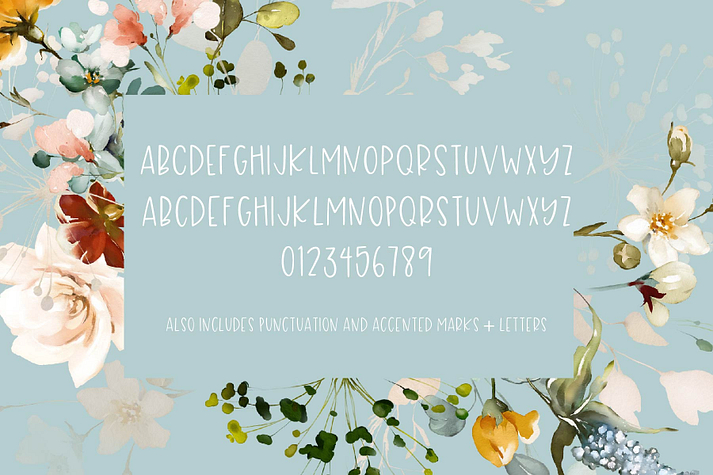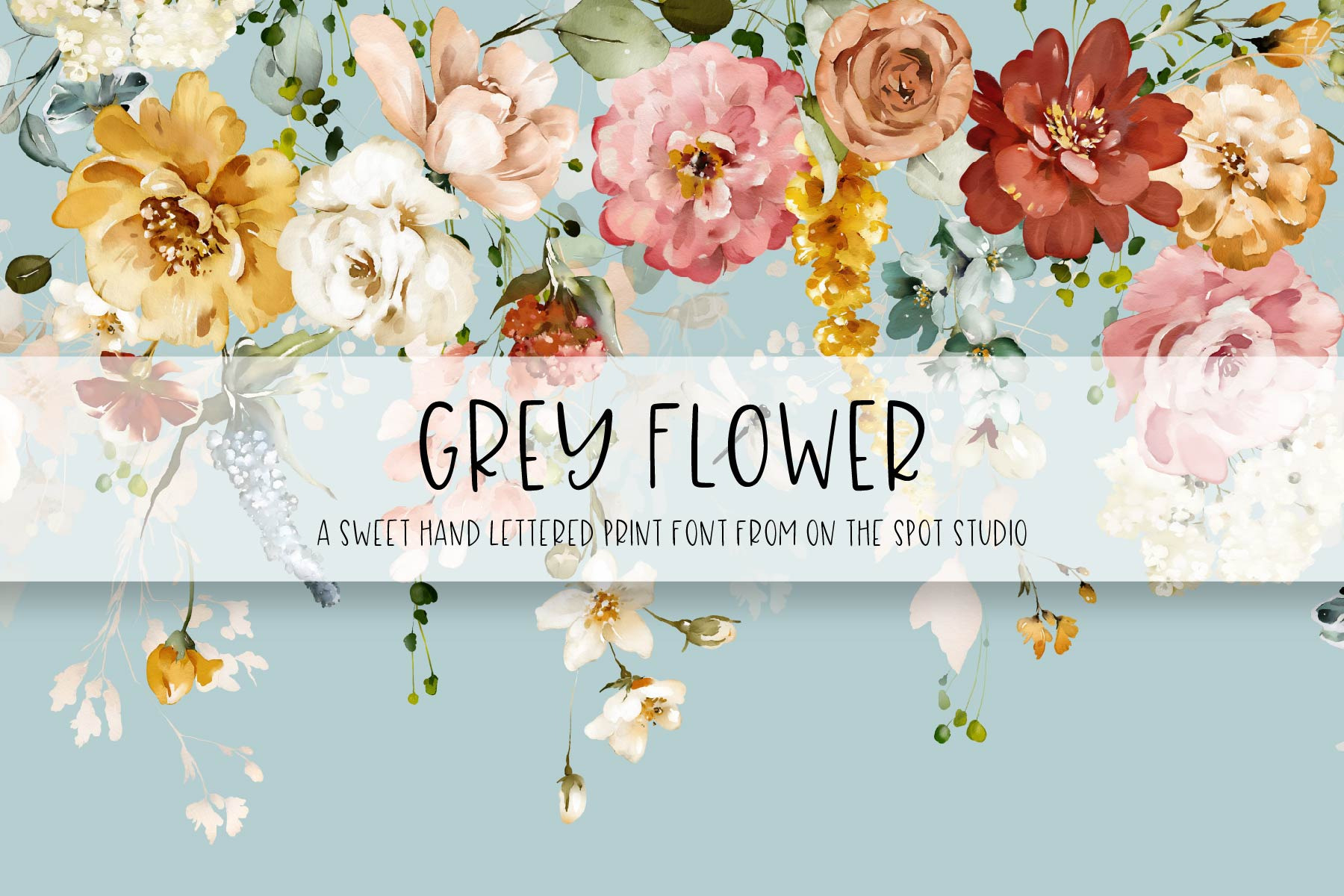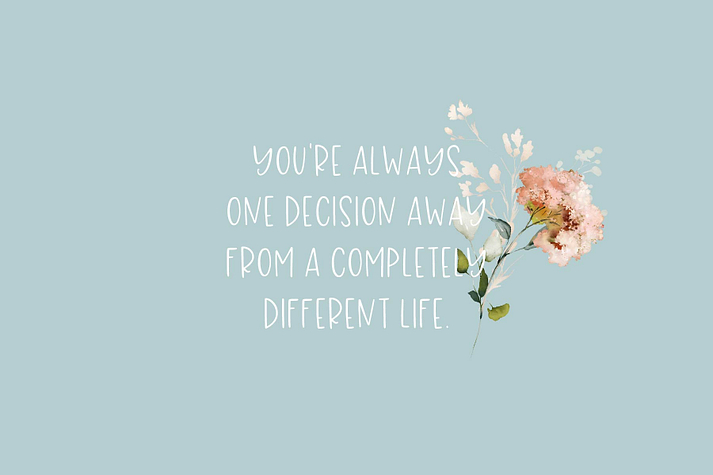
Grey Flower
Grey Flower is a font family published by On The Spot Studio.
grey flower is an all uppercase hand written print this font includes uppercase letters, alternate letters in lowercase, accent marks, punctuation and numbers.